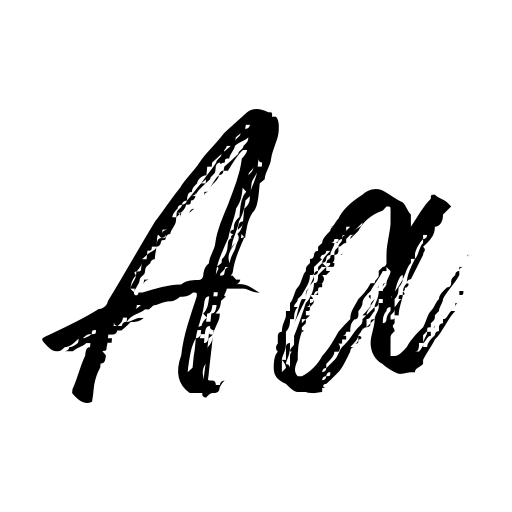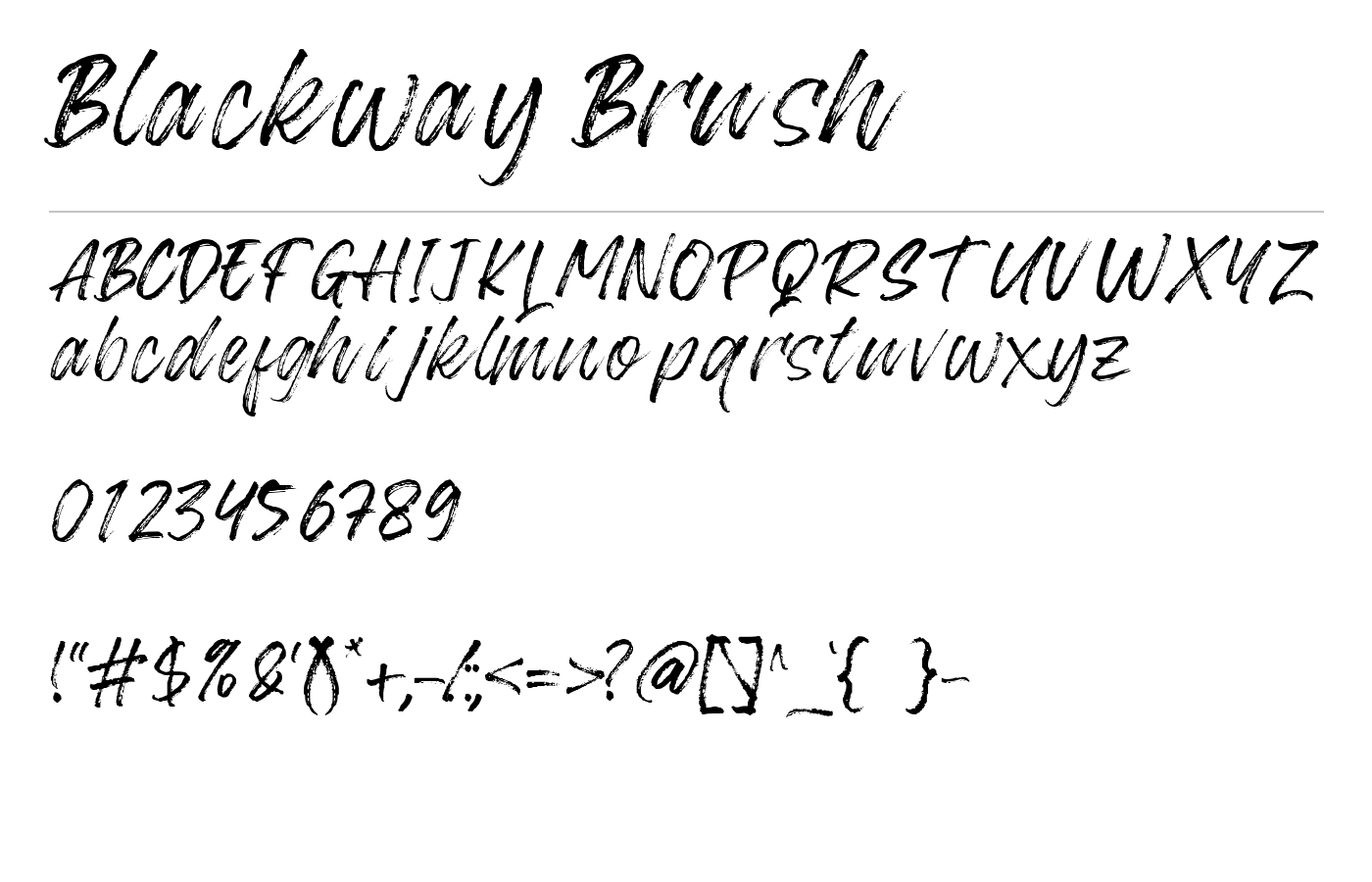
Blackway Brush is a dynamic script font with a bold, textured brushstroke style that exudes energy and creativity. Its casual, hand-painted feel with varied stroke widths and slightly rough edges makes it perfect for adding a personal, artistic touch to branding, posters, and creative headlines. This font shines in designs that want to convey a lively, authentic, and handcrafted vibe.
Blackway Brush Font
About Blackway Brush Font
| Font family | Blackway Brush Font |
| Designer | Stringlabs |